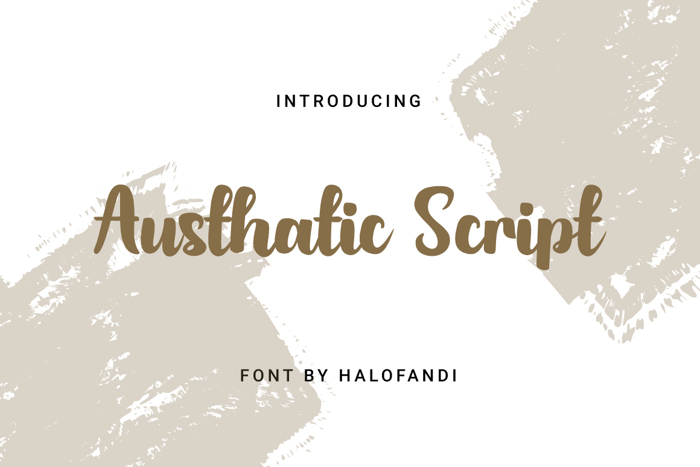
Austhatic Script Font
Austhatic Script is an incredibly distinct, delicate, and timeless handwritten font. It looks stunning on wedding invitations, thank you cards, quotes, greeting cards, logos, business cards, and every other design which needs a handwritten touch.